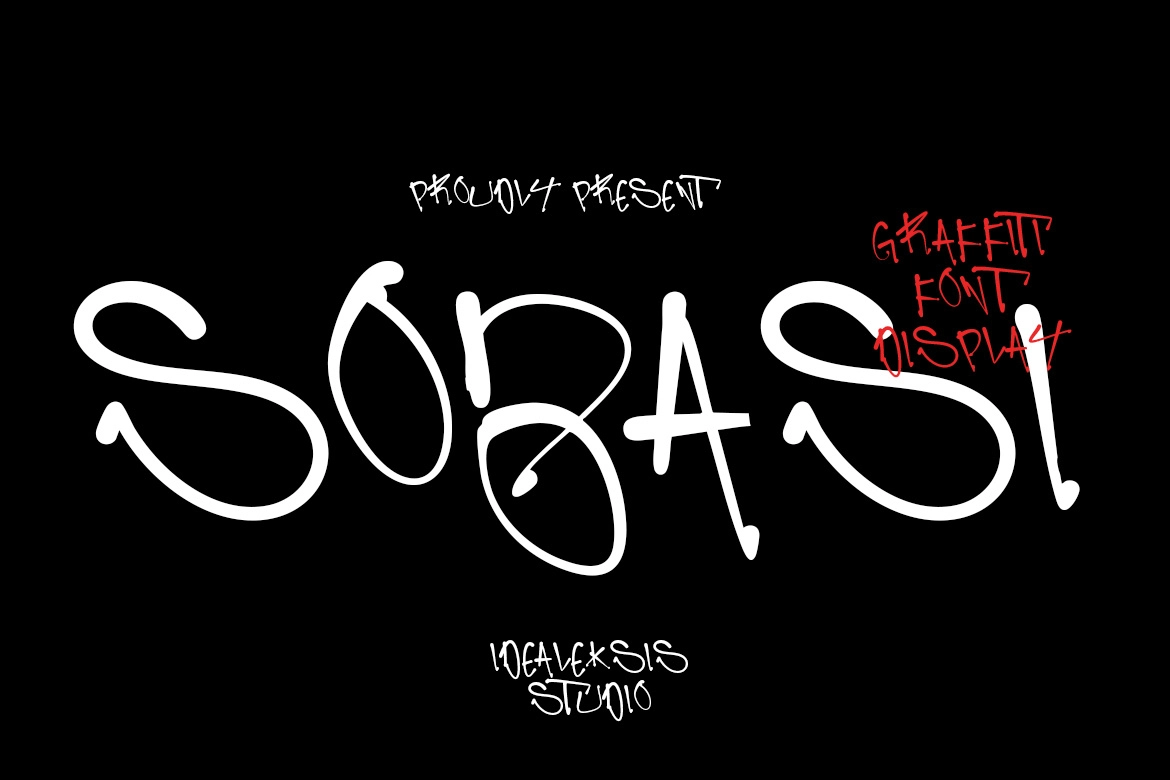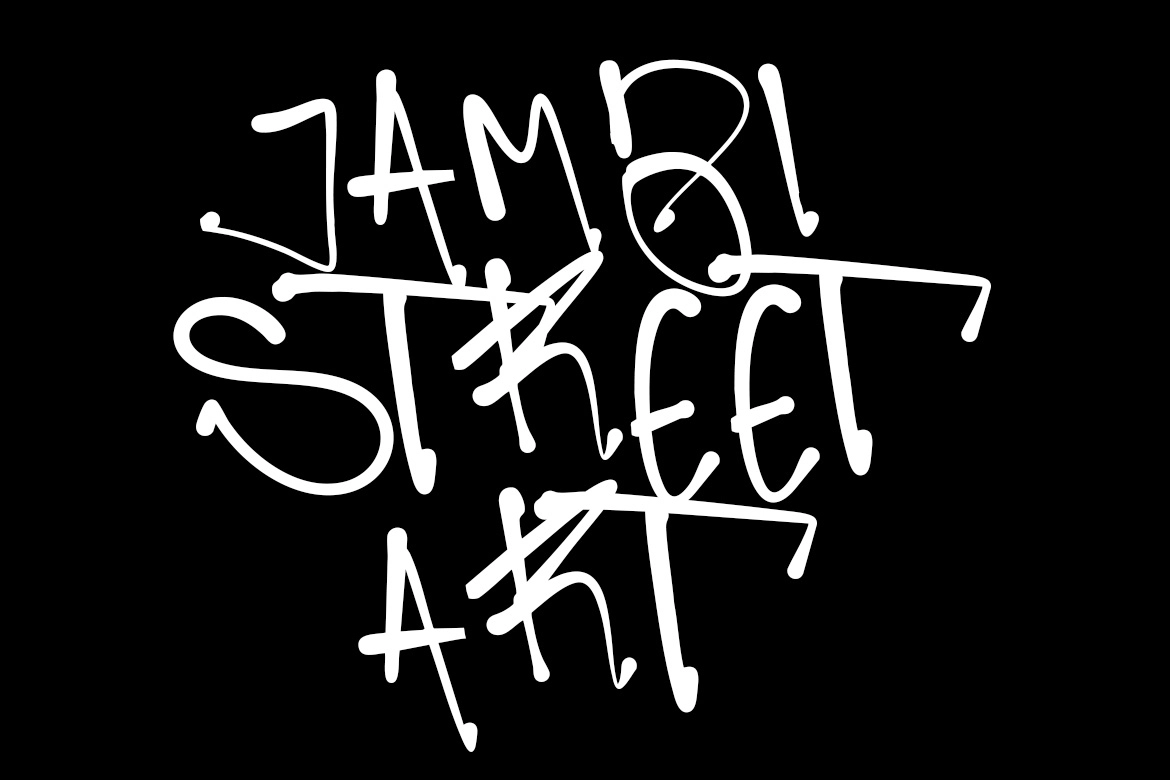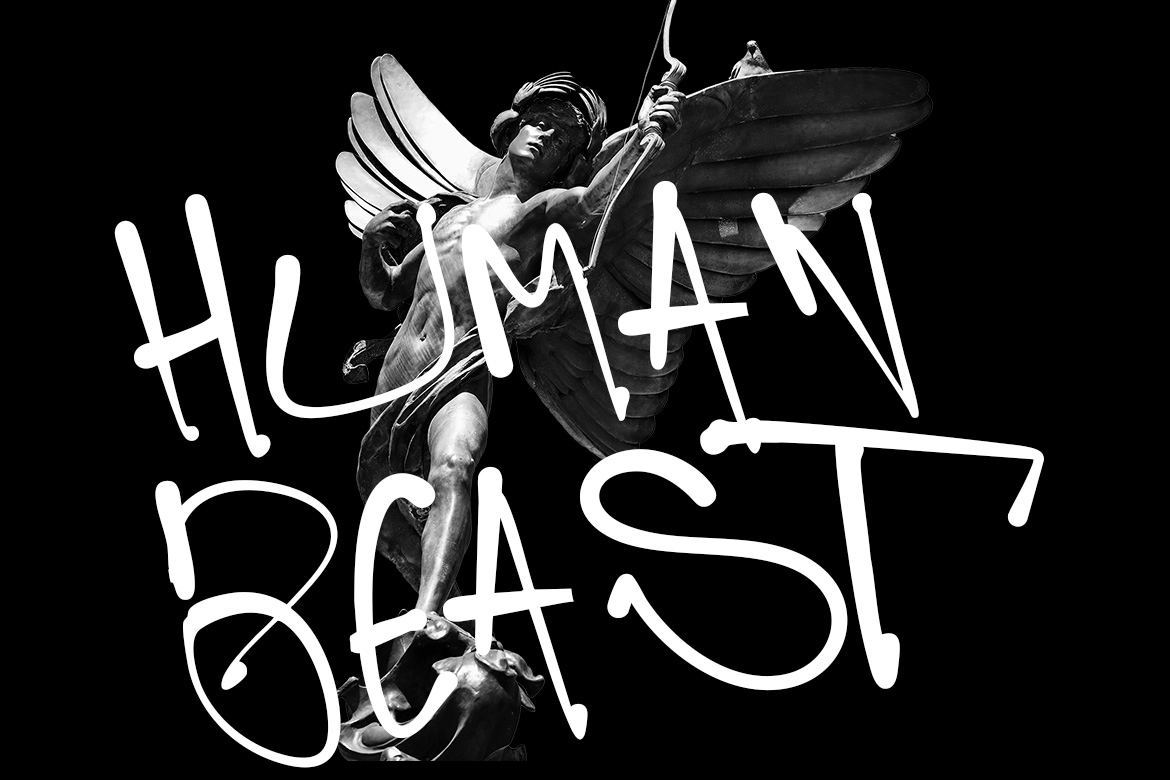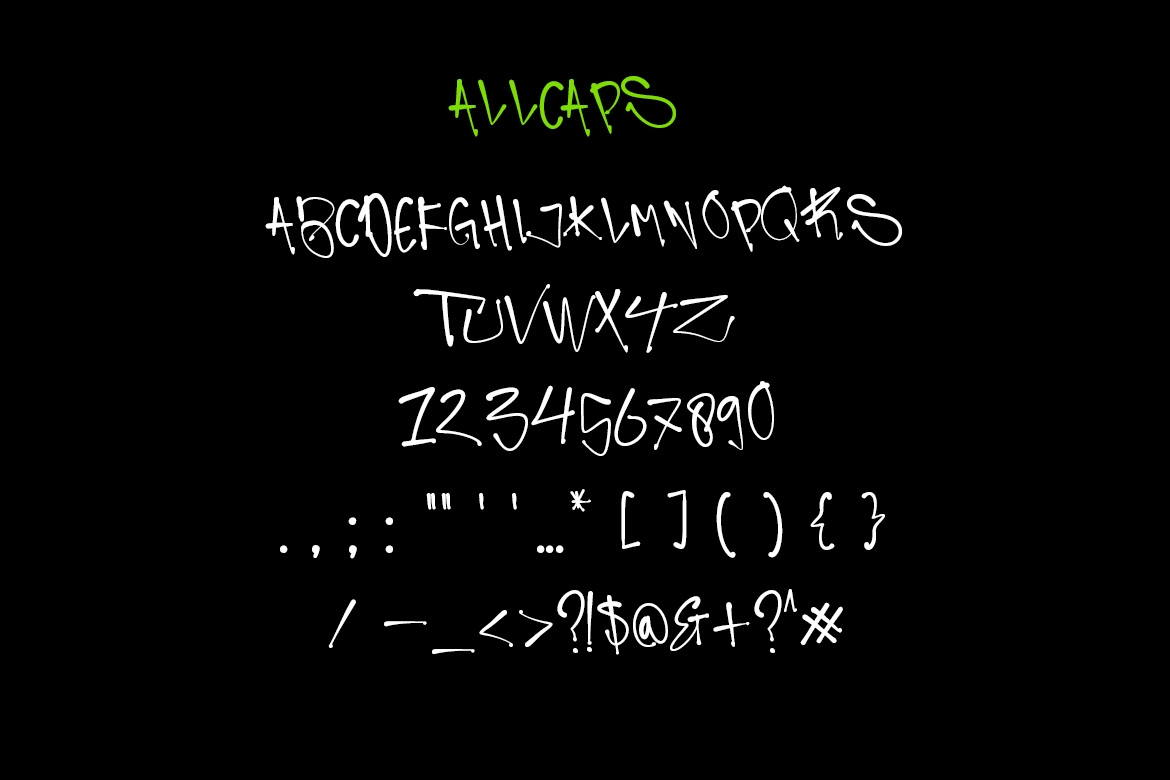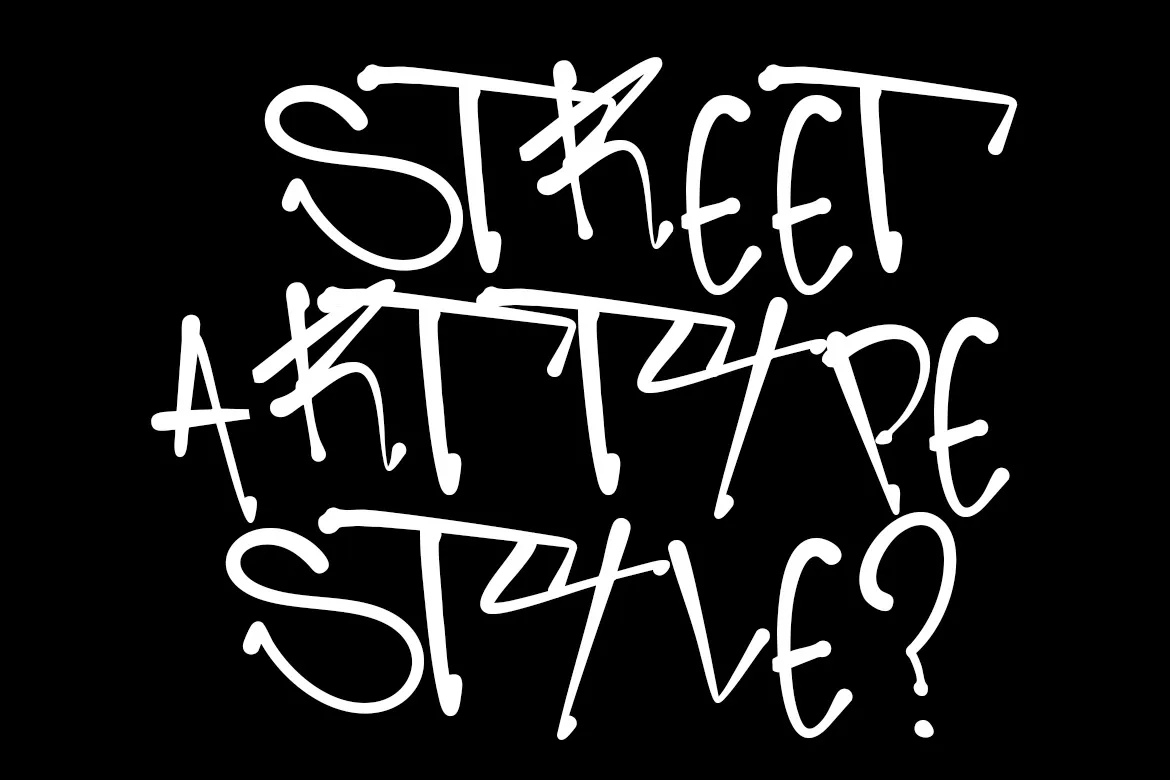
Sobasi - Marker Graffiti Font
Sobasi
Sobasi - Marker Graffiti Font is a bold, street-inspired display typeface that captures the raw energy of hand-drawn marker lettering. With expressive strokes, uneven lines, and a loose handwritten structure, it delivers an authentic graffiti aesthetic full of attitude and movement.
Designed for impactful visuals, Sobasi is perfect for posters, streetwear branding, album covers, and social media graphics. Its edgy, urban style brings a sense of spontaneity and creative freedom, making any design feel dynamic and eye-catching.
- Uppercase (All Caps)
- Ligatures
- Marker Graffiti Style